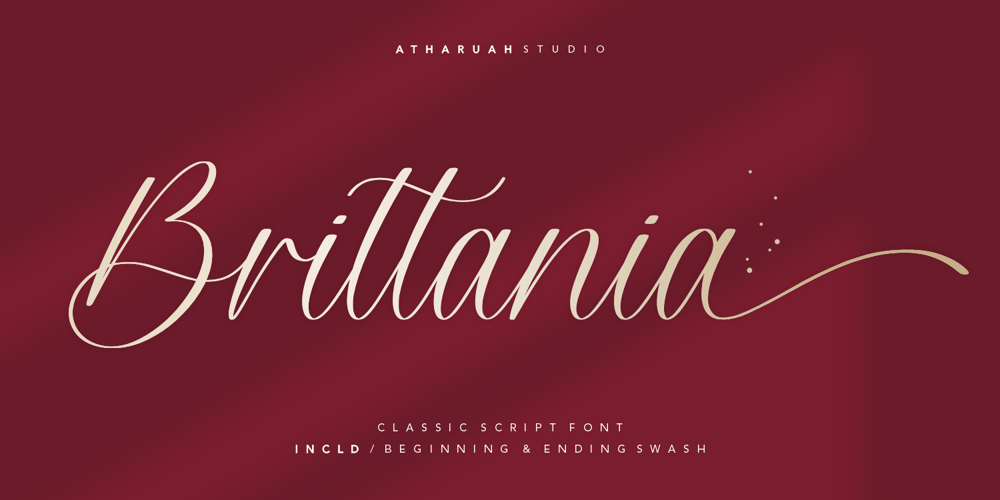
Brittania Font Family was designed by Andre Bima Falah Rabbani and published by Atharuah Studios. Brittania contains 1 styles and family package options. Introducing the Brittania! Classic script font that shows beauty and balance in every letter that is displayed.The font files include uppercase, lowercase, numbers, punctuation, and multilingual support.Brittania also adds a beginning and ending swash to beautify each of your projects. You can access it in every lowercase alternative.That’s it! I hope you enjoy it.Feel free to comment if there are issues or queries.You can also say hello to me on Instagram: https://www.instagram.com/atharuah_Thank You!